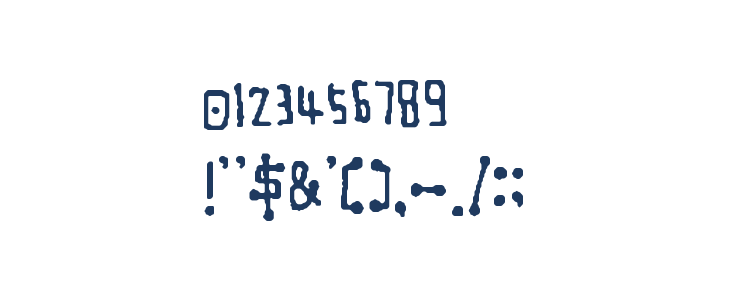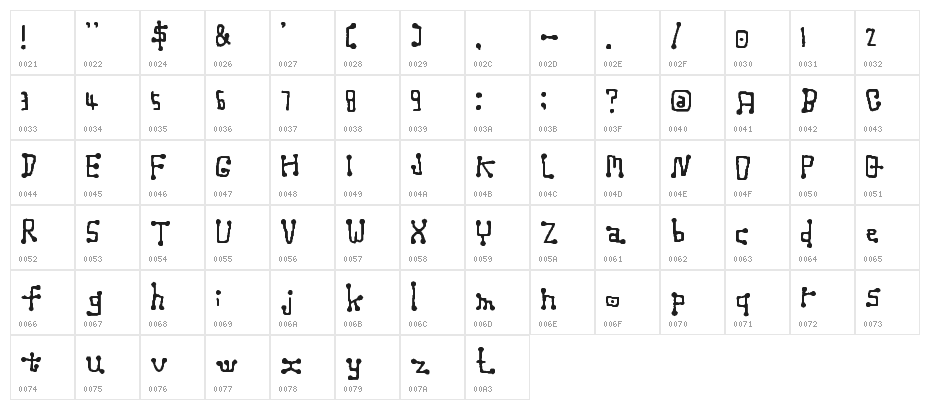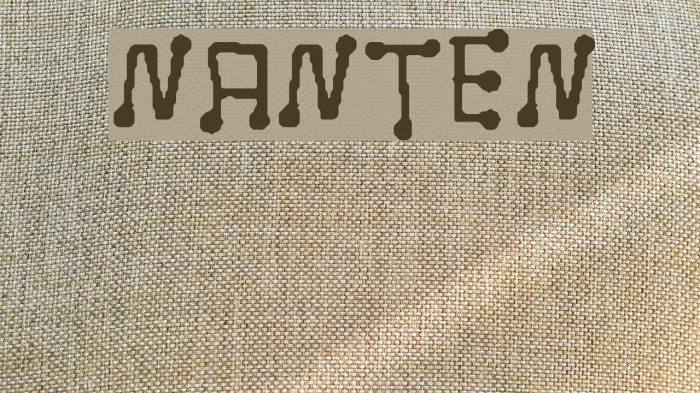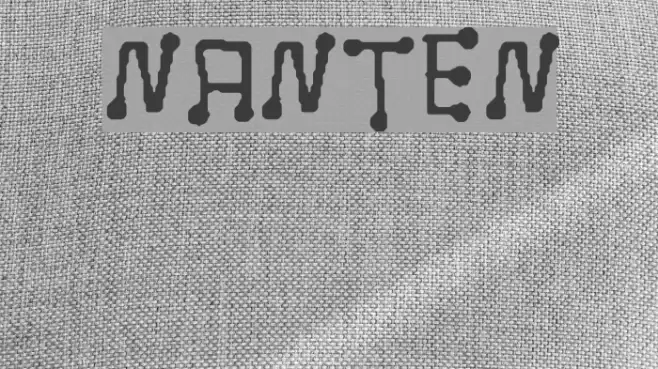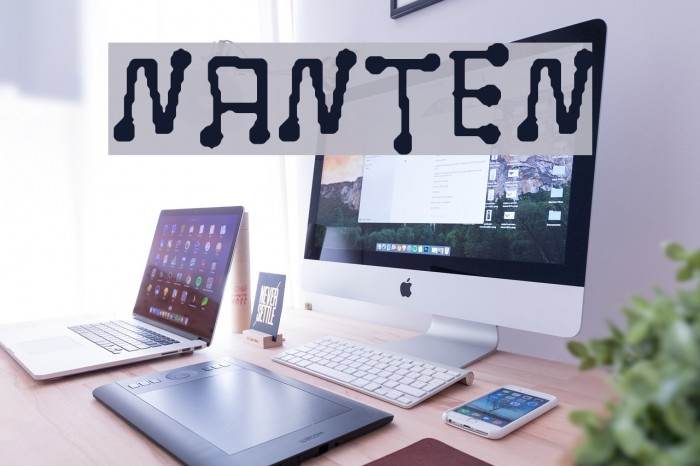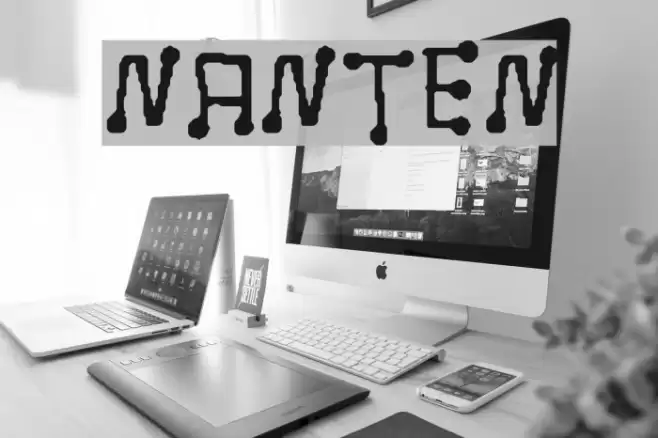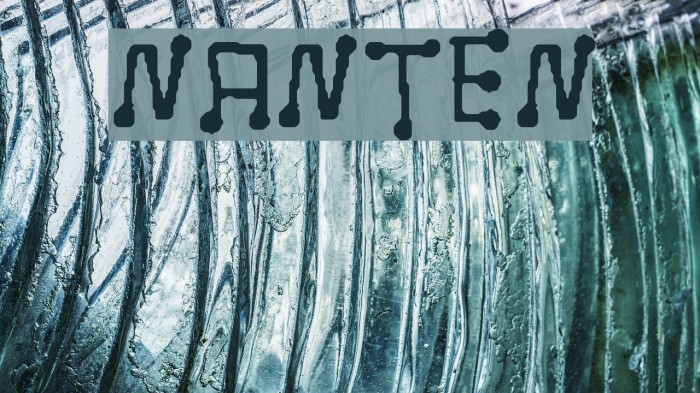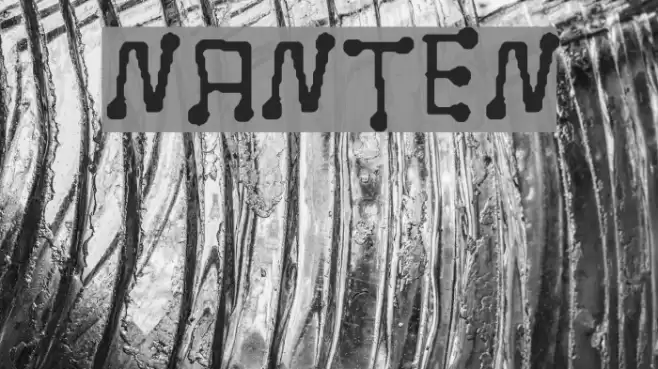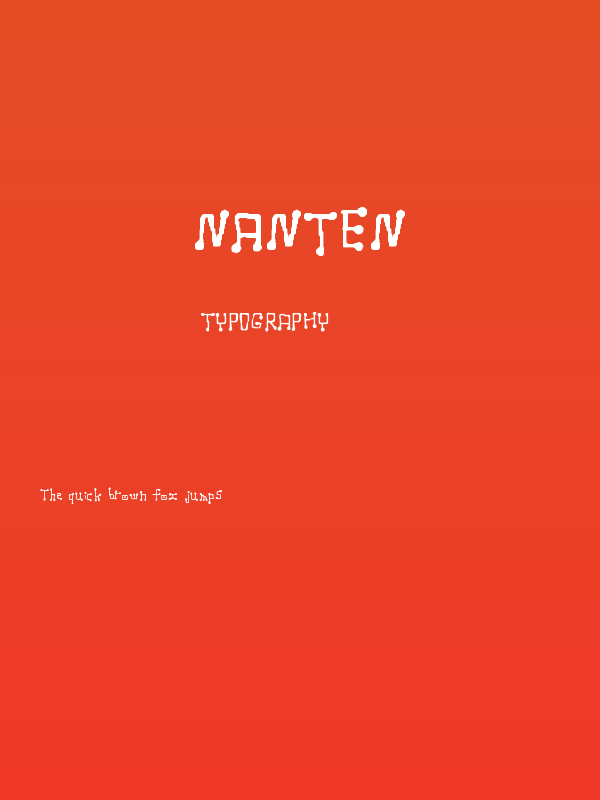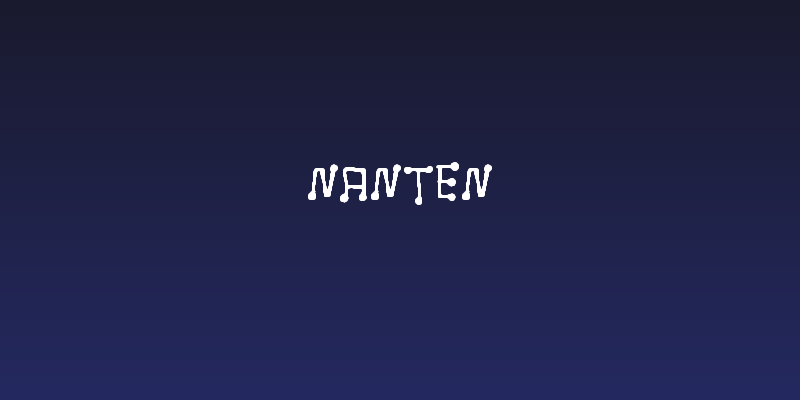
NANTEN Font
NANTEN Description
This font features a unique, organic design with irregular, blob-like strokes that give it a playful and artistic appearance. The characters are bold and have a hand-drawn quality, with uneven edges and varying thicknesses that create a dynamic visual texture. The uppercase and lowercase letters maintain a consistent style, with rounded, irregular shapes that suggest a sense of movement. Numbers and special characters follow the same design principles, ensuring a cohesive look across all glyphs. This font is ideal for projects that require a distinctive, creative touch.
| Proposed Projects | Ideal for artistic projects, children's books, creative posters, and unique branding materials. |